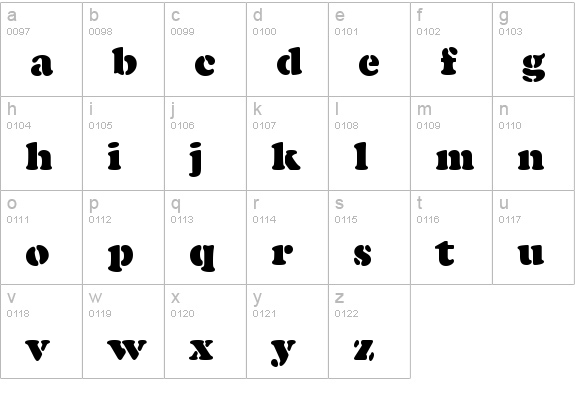
Cooper-Black-Stencil-Regular is a maximum-weight, dramatic variant in the Cooper typeface family \xE2\x80\x94 well suited to maximum-impact headlines, posters, and packaging.
Cooper-Black-Stencil-Regular is a unique and eye-catching font that combines the classic Cooper Black style with a modern stencil design. This font is perfect for creating bold headlines, posters, and branding materials that demand attention. Its strong and distinctive appearance makes it stand out in any design project. What makes Cooper-Black-Stencil-Regular even better is that it is available for free download at FontsMarket.com. This means you can easily access and use this fantastic font in your projects without any cost. Whether you're a designer looking to add a touch of creativity to your work or a business owner in need of a striking font for your marketing materials, Cooper-Black-Stencil-Regular is the perfect choice. Download it today and elevate your designs with this stylish and versatile font.